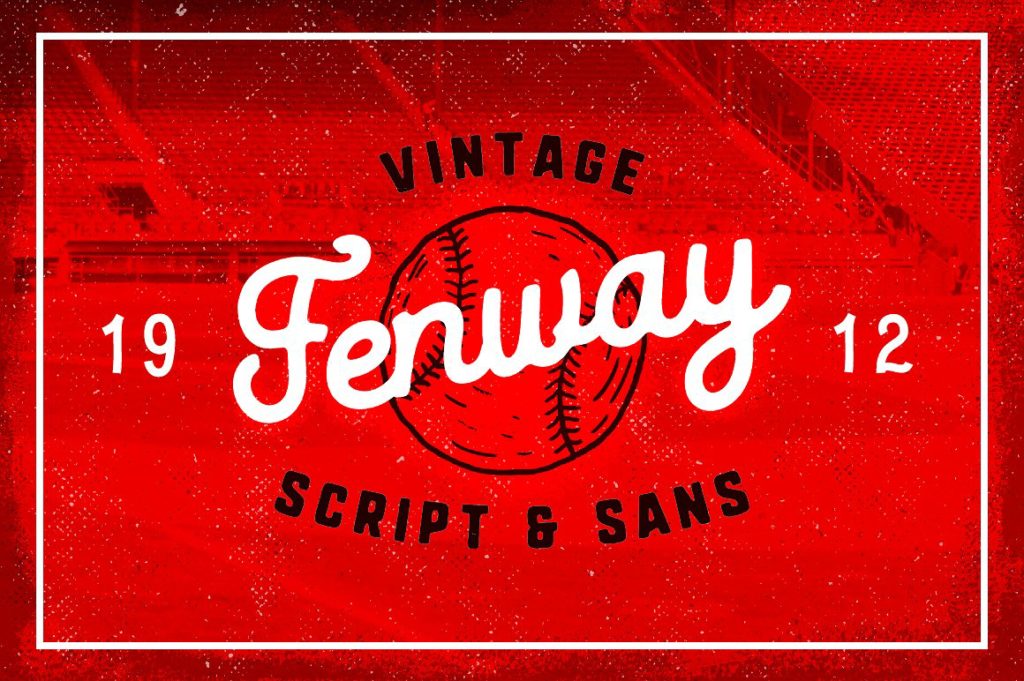
Fenway Script Typeface
FENWAY typeface by Pavel Korzhenko is a very vintage script for all who love american sport style, and retro typography. Inspired by old school scripts on the vintage baseball jerseys and team logos typography. Enjoy!